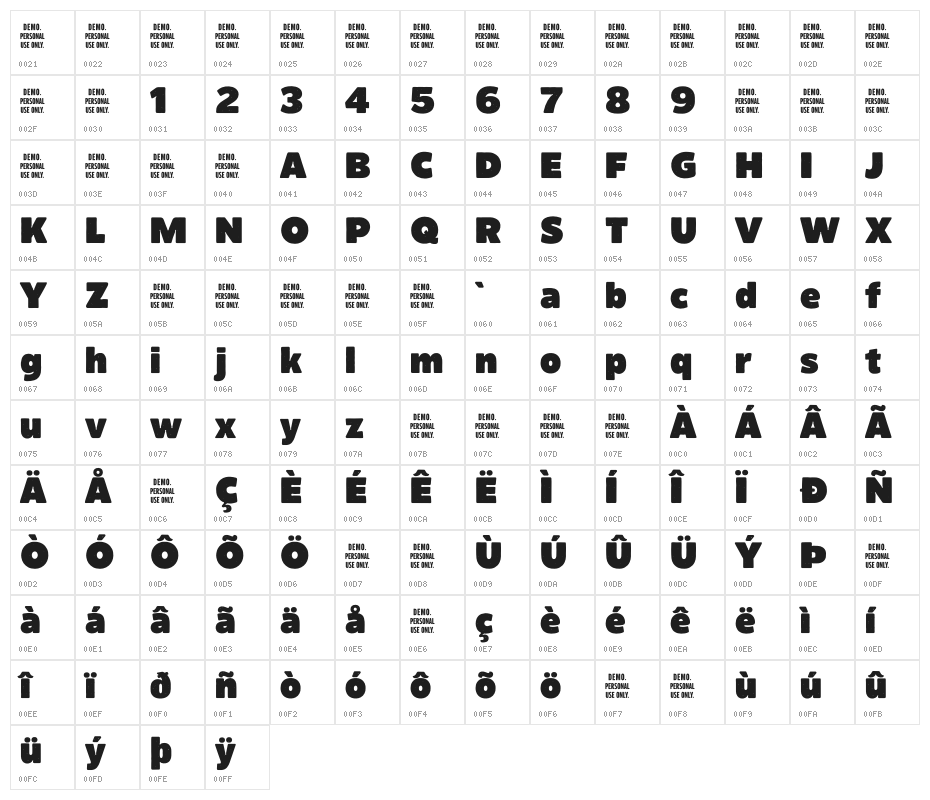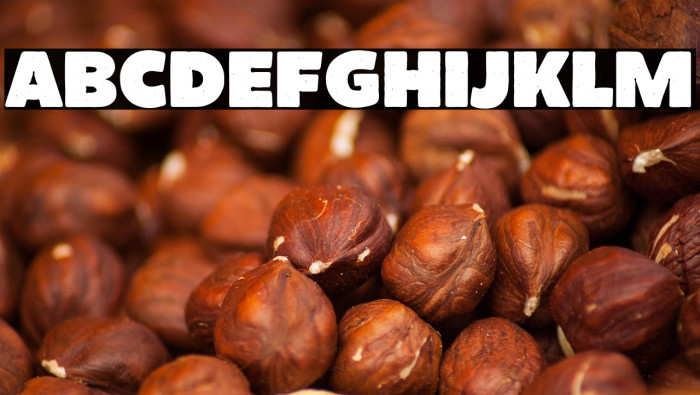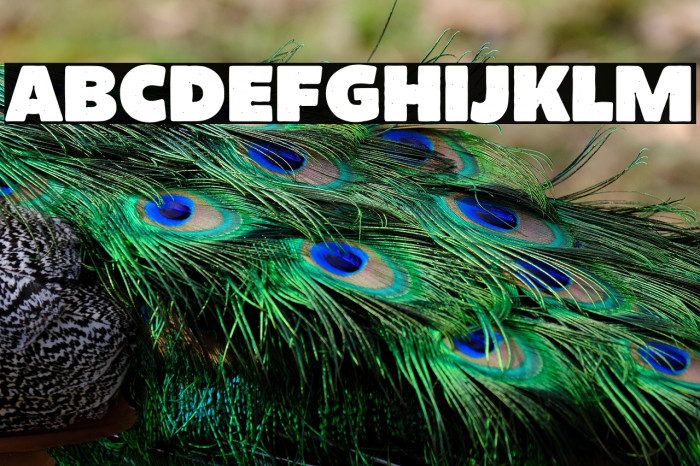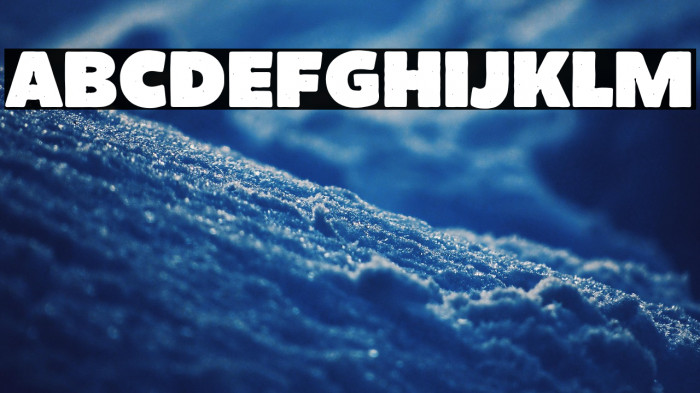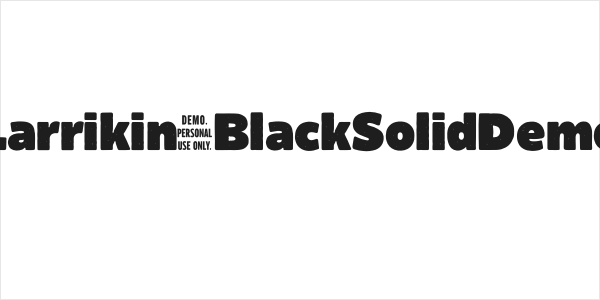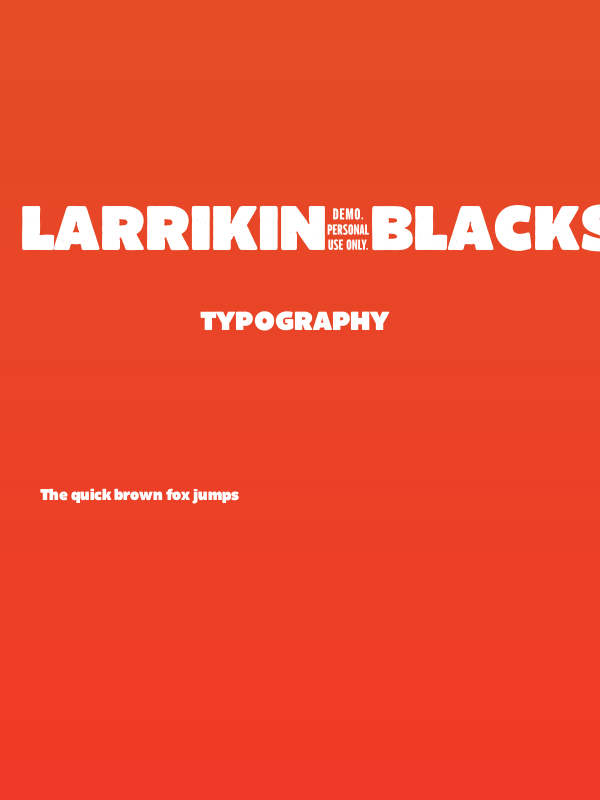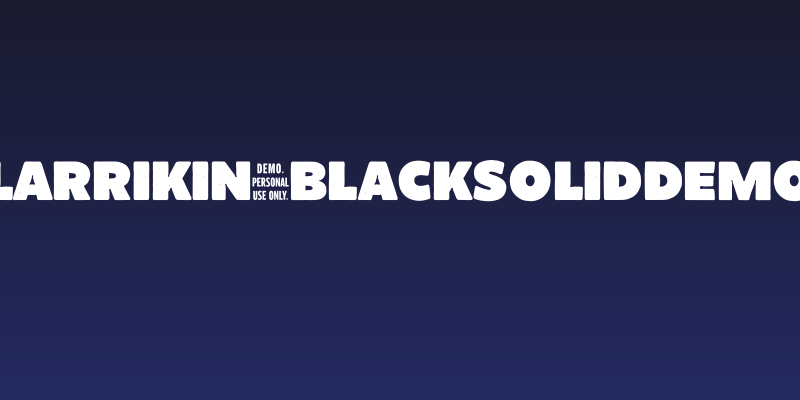
Larrikin-BlackSolidDemo Font
Larrikin-BlackSolidDemo Description
This bold and impactful font features thick, solid strokes that create a strong visual presence. The characters are uniformly wide, with rounded edges that soften the overall appearance, giving it a playful yet assertive look. The uppercase and lowercase letters maintain a consistent style, ensuring readability and coherence. The numerals are equally bold, matching the letterforms in weight and style. This font is ideal for making a statement, with its high contrast and substantial weight drawing attention immediately.
| Proposed Projects | Perfect for branding, posters, headlines, and any design needing a strong, eye-catching typeface. |